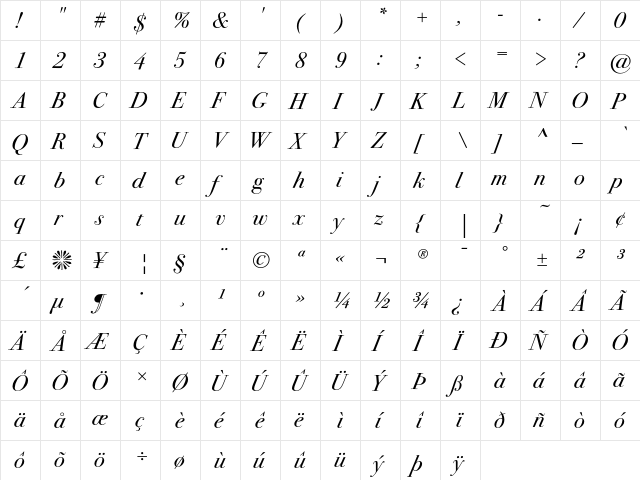
BodoniSeventytwoEF BookIta
Design Context for BodoniSeventytwoEF Typeface
BodoniSeventytwoEF offers clean, dependable letterforms without strong stylistic allegiance, making it a practical choice for designers who need flexibility.